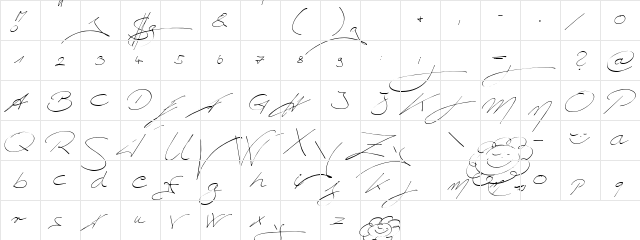
Koller Font Script
| Style | Script |
| Foundry | Font Garden |
| Designer | Ellinor Rapp |
Koller Font brings a calligraphic fluidity to the page — its connecting strokes and expressive curves give it an unmistakably human quality.